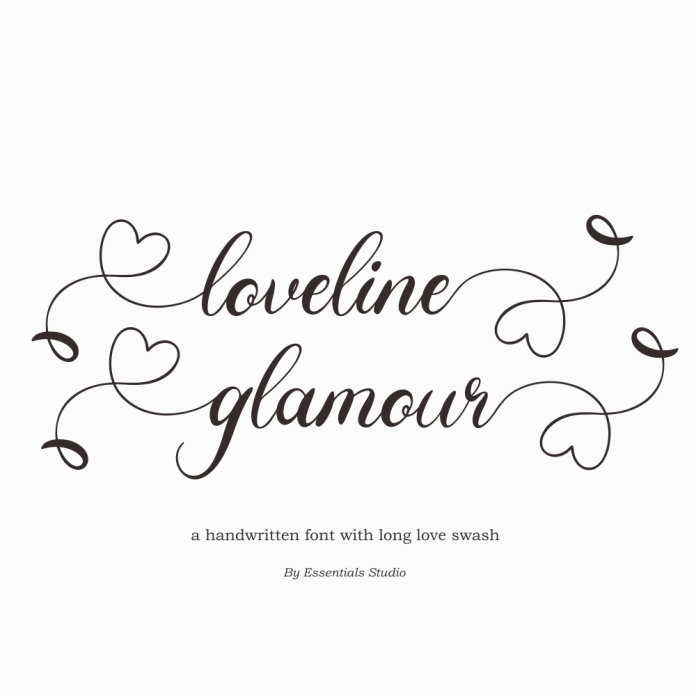
Loveline Glamour - Wedding Craft Love Script Font
Loveline Glamour is an exquisite handwritten font, masterfully designed to become a true favorite. It maintains its classy calligraphic influences while feeling contemporary and fresh. Fall in love with it and bring your projects to the highest levels! This font is PUA encoded which means you can access all of the amazing glyphs and ligatures with ease!